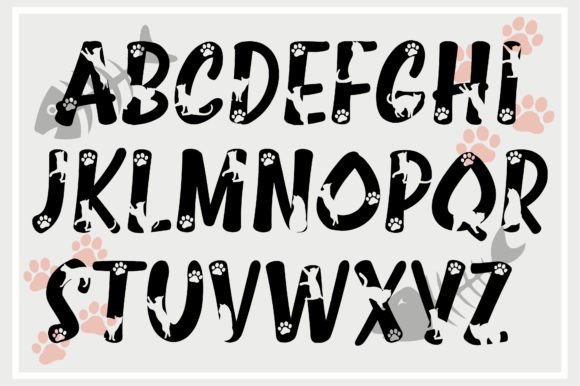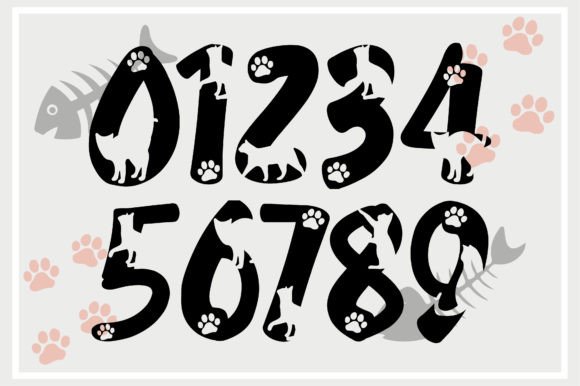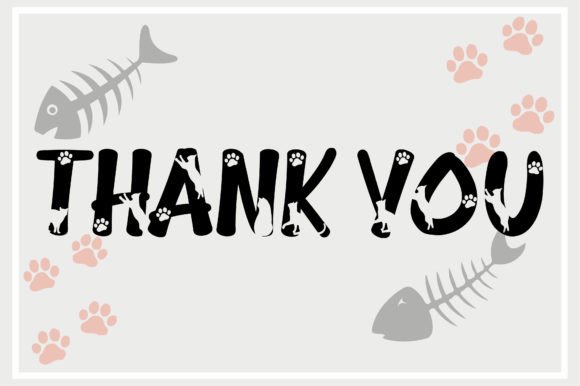
Unleashing the Purr-fect Font: A Designer’s Best Friend
Have you ever found yourself stuck in a creative rut, searching for the perfect font to bring your design to life? I know I have! It was during one such moment that I stumbled upon the adorable Cat Font. This thick-lettered, fun-looking decorative font is a game-changer for designers, especially those working on children-themed projects.
The Cat Font is more than just a cute font – it’s a way to add a touch of whimsy and playfulness to your designs. Its bold, rounded letters are perfect for creating eye-catching graphics, posters, and even merchandise. Whether you’re designing for kids or kids-at-heart, the Cat Font is sure to bring a smile to their faces.
Cat Font Key Features
- Font Style: Cat Font is a sans-serif typeface with rounded edges, designed to resemble a cat’s face.
- Character Set: Includes a wide range of characters, including uppercase and lowercase letters, numbers, and punctuation marks, as well as special cat-themed symbols.
- Unique Characteristics: Features a distinctive “whisker” design element on the uppercase letters “K” and “R”, and a cute cat ear design on the lowercase letters “q” and “p”.
Cat Font Review
Overall, I’m underwhelmed by Cat Font. As a designer, I appreciate its quirky and playful vibe, but I’m not convinced it’s a game-changer. That being said, here are some things that work well:
- ✨ The unique cat silhouettes add a touch of whimsy to text, making it perfect for fun and casual projects.
- ✨ The font is highly customizable, allowing users to adjust size, color, and spacing to suit their needs.
- ✨ The Cat Font library includes a wide range of cat-inspired glyphs, including punctuation and symbols.
However, there are some limitations that give me pause:
- ⚠️ The font can be difficult to read, especially at smaller sizes, due to its irregular shape and lack of legibility.
- ⚠️ The font may not be suitable for formal or professional projects, as it’s too playful and attention-seeking.
- ⚠️ The font is not optimized for digital use, leading to potential display issues on smaller screens.
In conclusion, Cat Font is a fun and creative option for designers looking to add some personality to their projects. However, its limitations and lack of versatility hold it back from being a truly useful tool in my arsenal.
The Cat Font is ideal for adding a playful and whimsical touch to your designs. Use it for:
- Cat-themed designs and branding.
- Children’s book illustrations and educational materials.
- Whimsical and humorous designs.
For optimal results, use the Cat Font in conjunction with bold and bright colors to create a visually appealing and eye-catching design.